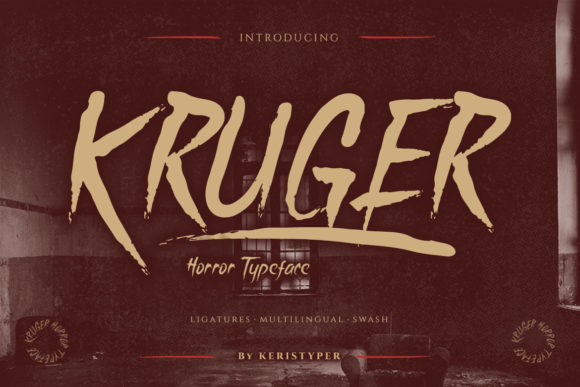
Venture into the realm of darkness and intrigue with Kruger Font, a masterfully crafted display font that'll make your designs scream. Each character is meticulously hand-brushed, exuding an authentic, horror-inspired aesthetic that electrifies any project it adorns.
Kruger Font's versatility extends beyond mere text; it's a visual symphony that commands attention in logos, social media posts, movie titles, book covers, and more. Its captivating presence commands the spotlight, leaving your audience spellbound.
Unleash your creativity and dive deep into Kruger Font's sinister charm. Let your imagination run wild as you conjure designs that ooze with mystery and suspense. This font is an open doorway to a world where nightmares and dreams collide, where shadows dance and whispers haunt the night.
Let Kruger Font become your artistic ally, guiding you through the treacherous landscapes of design. Its dark allure and gritty texture will transform your projects into captivating tales that linger in the recesses of the viewer's mind.
Don't settle for ordinary fonts. Embrace the macabre beauty of Kruger Font and watch your designs morph into mesmerizing expressions of artistry. It's the perfect font for those who dare to embrace the dark side of creativity.
As you explore the depths of design with Kruger Font by your side, you'll discover a wealth of possibilities. Its ominous overtones will elevate your projects to new heights of sophistication, leaving a lasting impression on those who behold it.
Embrace the darkness. Embrace Kruger Font.